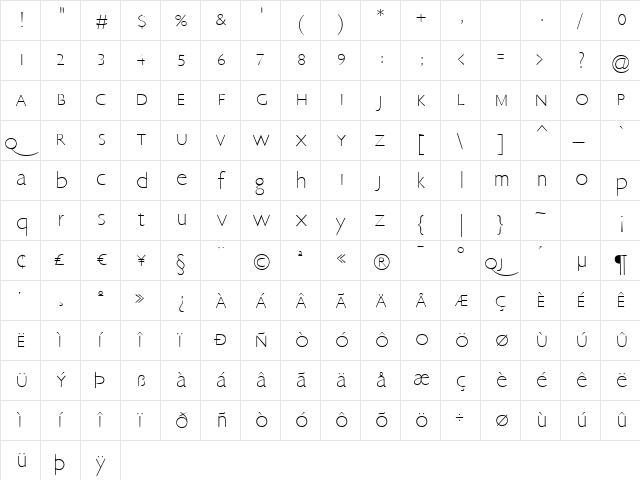
EricSans Regular Font Preview
EricSans Regular
EricSans Regular Font Details
Design Context for EricSans Typeface
EricSans is a composed and adaptable typeface that performs quietly and consistently across a wide range of design contexts.